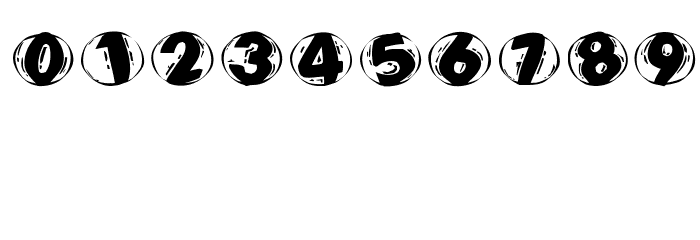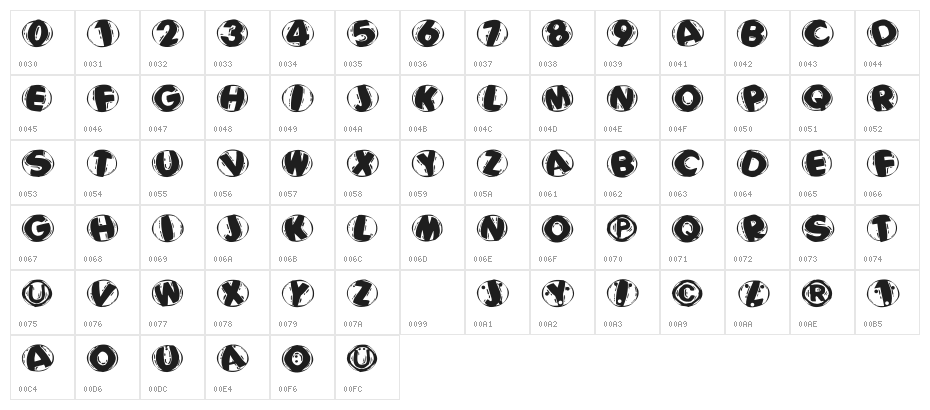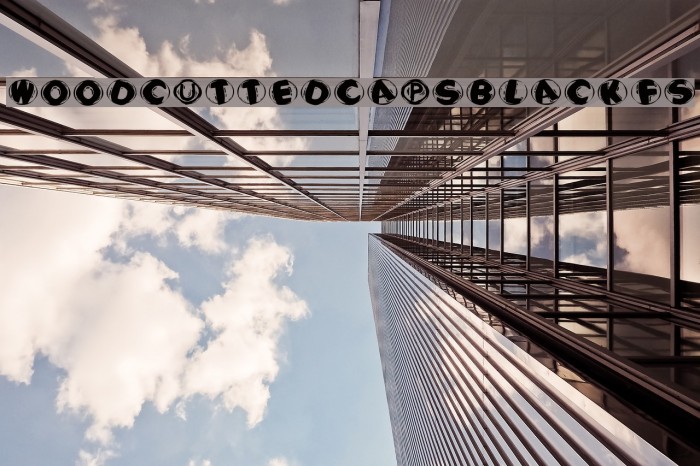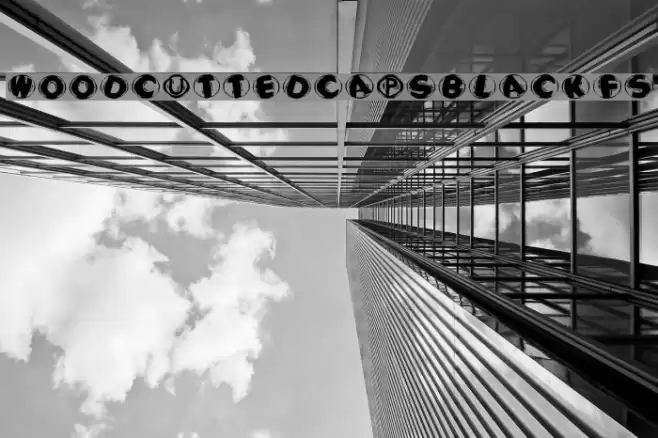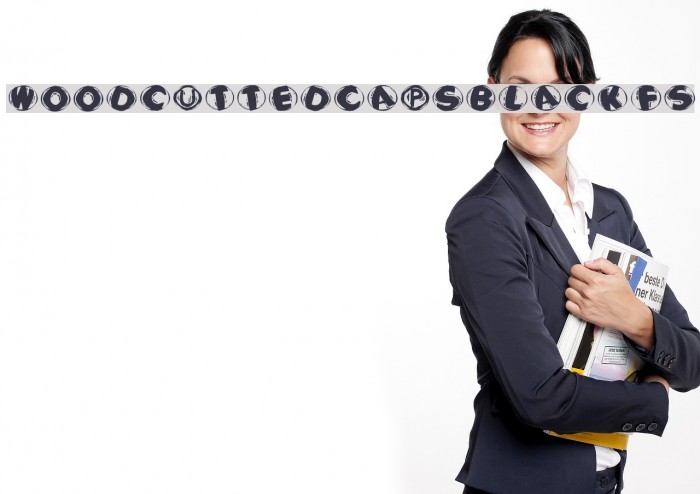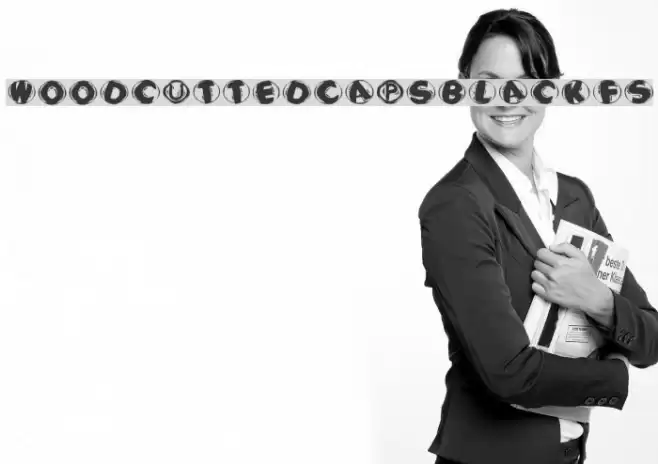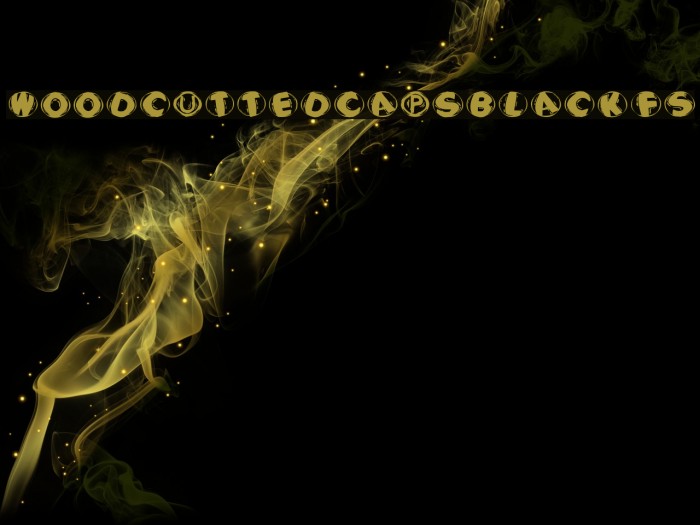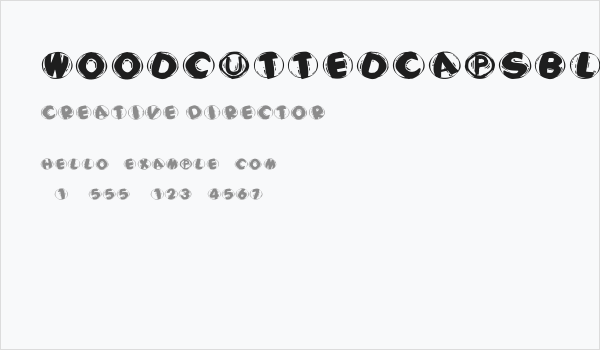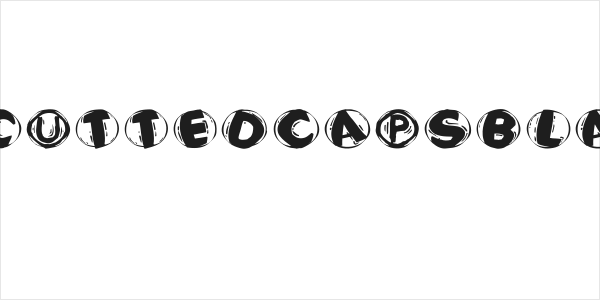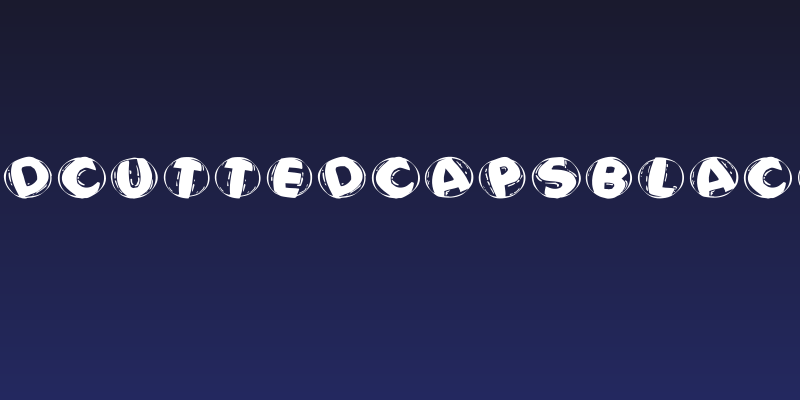
WoodcuttedCapsBlackFS Font
WoodcuttedCapsBlackFS Description
This font features a bold, decorative style with a woodcut effect, giving each character a unique, textured appearance. The letters are enclosed in circular shapes, enhancing the handcrafted, rustic feel. The uppercase and lowercase letters maintain a consistent design, with a playful yet rugged aesthetic. The numbers and special characters follow the same theme, making the font versatile for various creative projects. The overall design is eye-catching and suitable for projects that require a distinctive, artistic touch.
| Proposed Projects | Ideal for posters, album covers, branding projects, and any design requiring a rustic, artistic flair. |